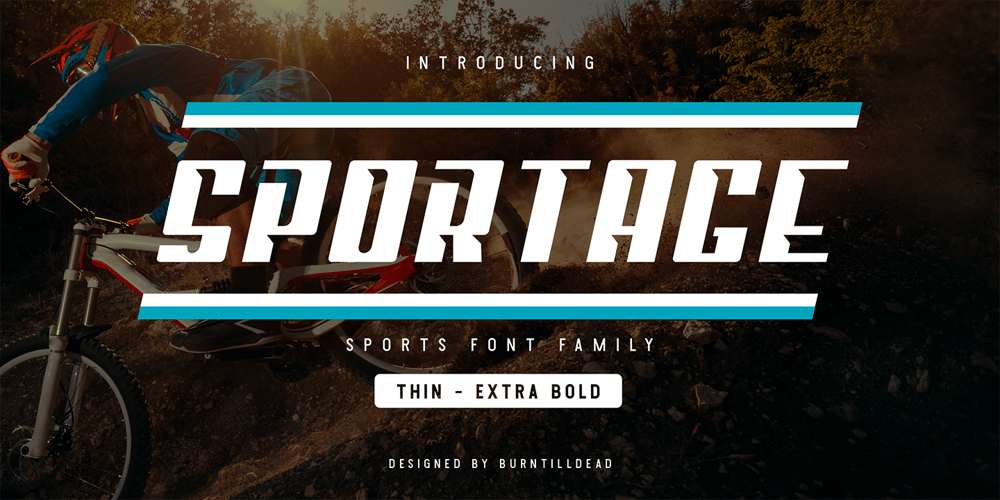
Sportage Font Family was designed by Eric Kurniawan and published by Burntilldead. Sportage contains 12 styles and family package options. Sportage is a sports font family from thin to extra bold. The Italic styles bring another vibe of speed. This family is built for people who are enthusiasts with racing, workouts, and other athletic activities. Its shape is rooted in the the competitive sports spirit. The Idea is to bring the dynamic shape mixed with weight , elevating athletic performance through progressive innovation of font, so whenever people see the font they think of hard work and sports.